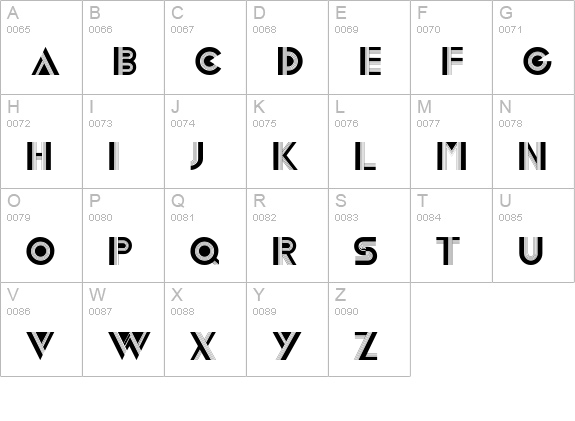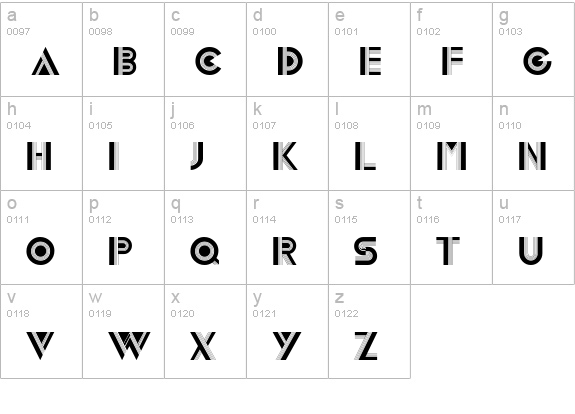
LivelyDisplayCaps Font Details
LivelyDisplayCaps font is a stunning display typeface that exudes energy and vibrancy. With its bold and playful letterforms, this font is perfect for adding a touch of liveliness to any design project. Whether you're creating posters, headlines, or branding materials, LivelyDisplayCaps will make your text pop and stand out. The best part? LivelyDisplayCaps font is completely free to download at FontsMarket.com. Now you can unleash your creativity without breaking the bank. Don't miss out on this fantastic opportunity to add some flair to your designs with LivelyDisplayCaps font. Download it today and let your words come to life!